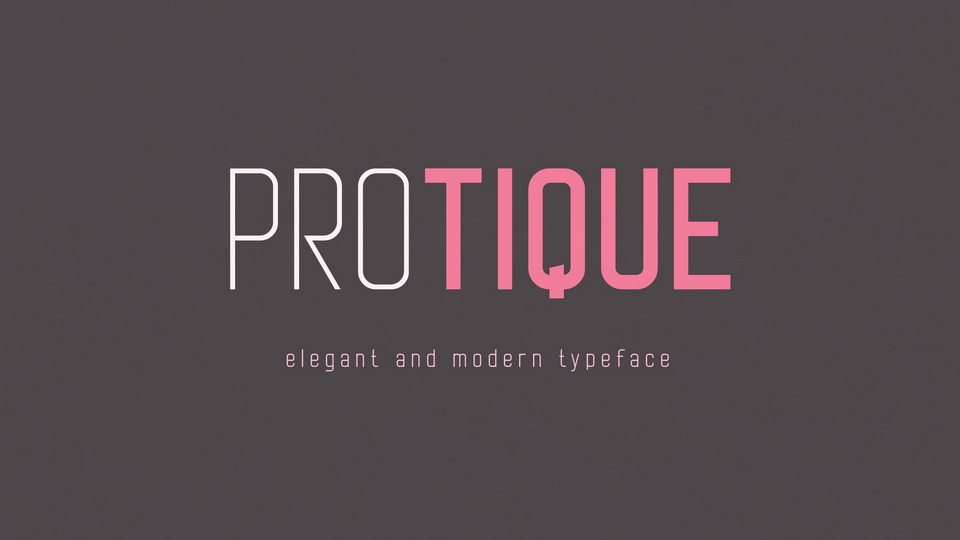
Download Protique font, a modern versatile sans serif typeface. Protique font captures a huge range for the design and creation of your project.
Designer: Shanaya Creative